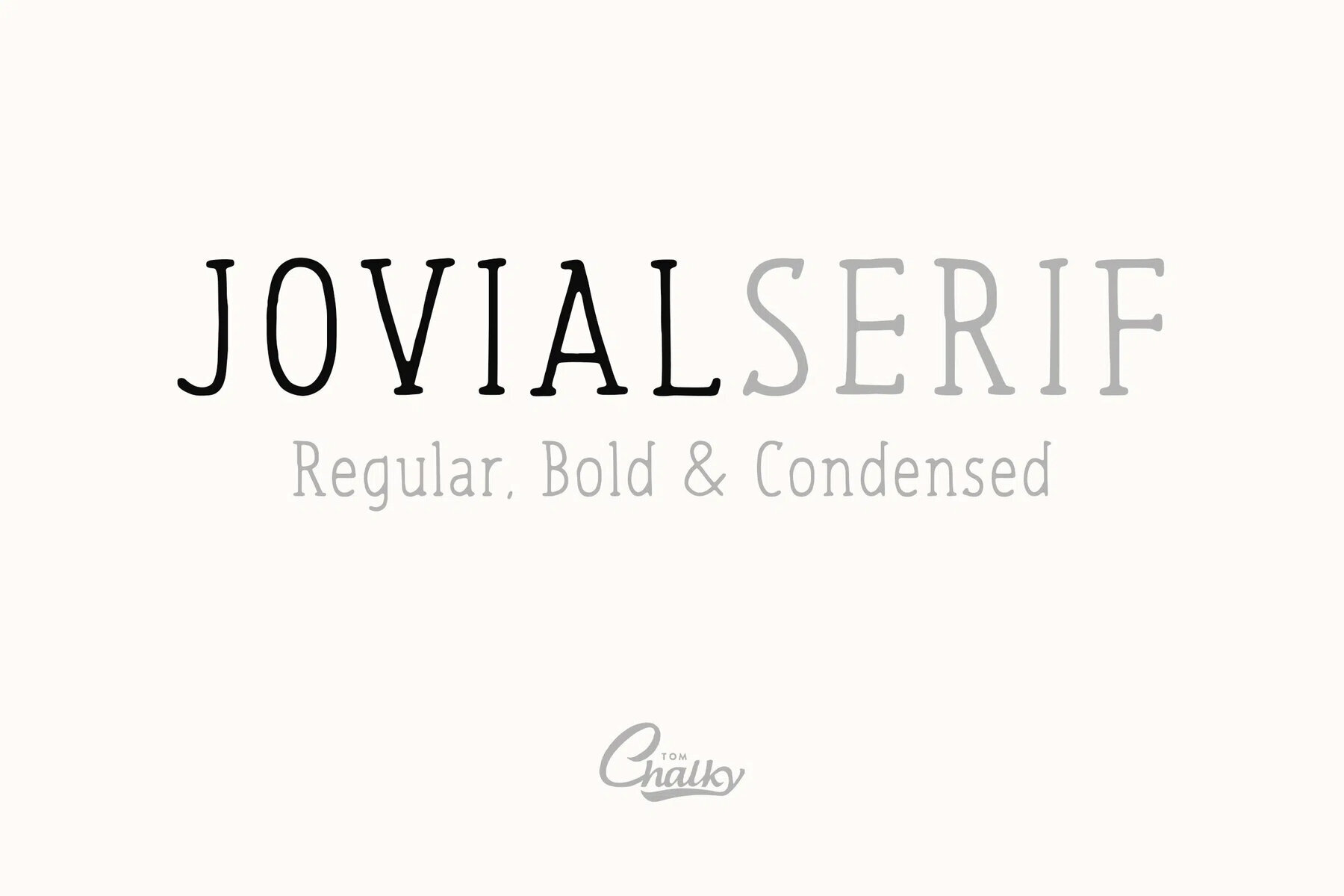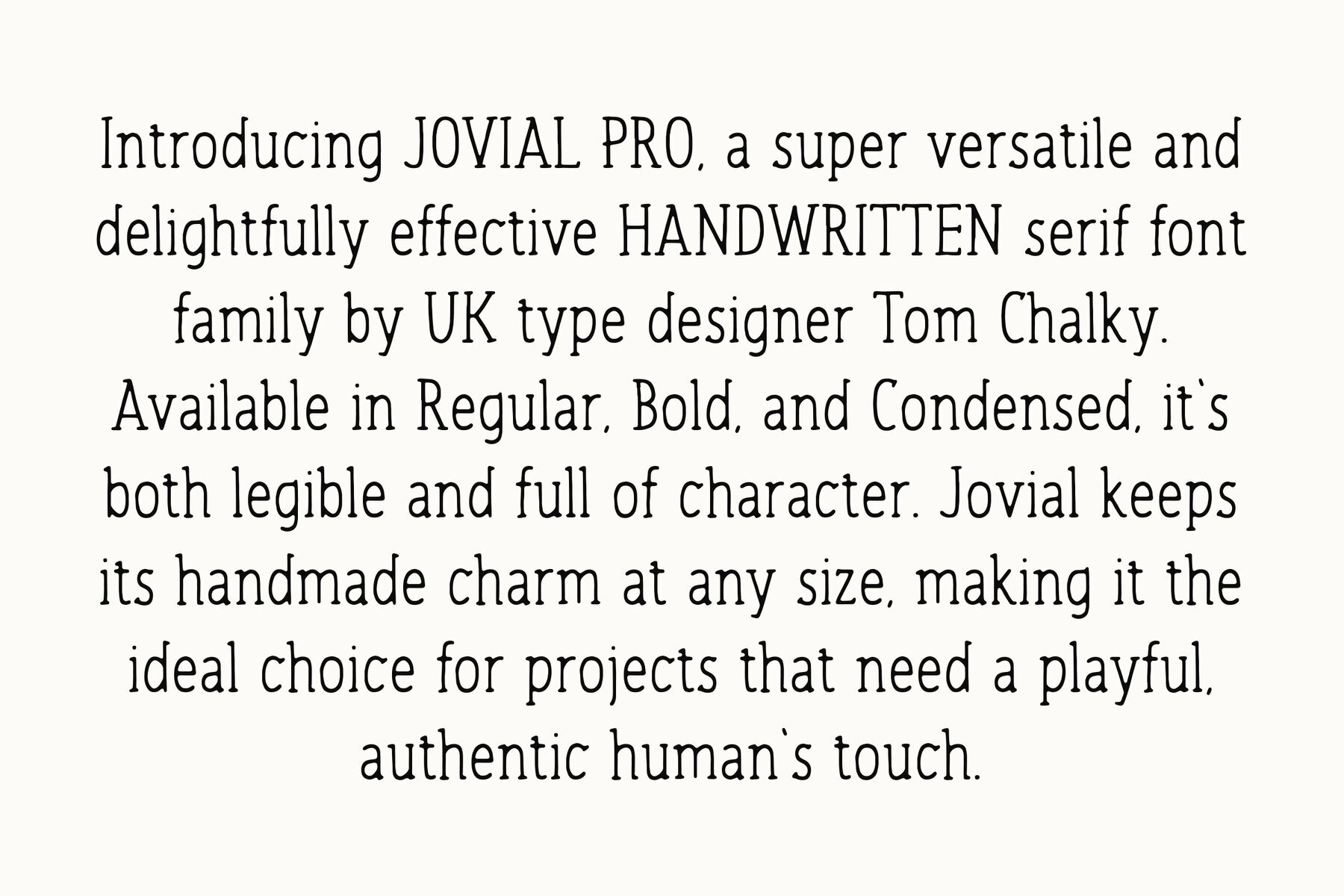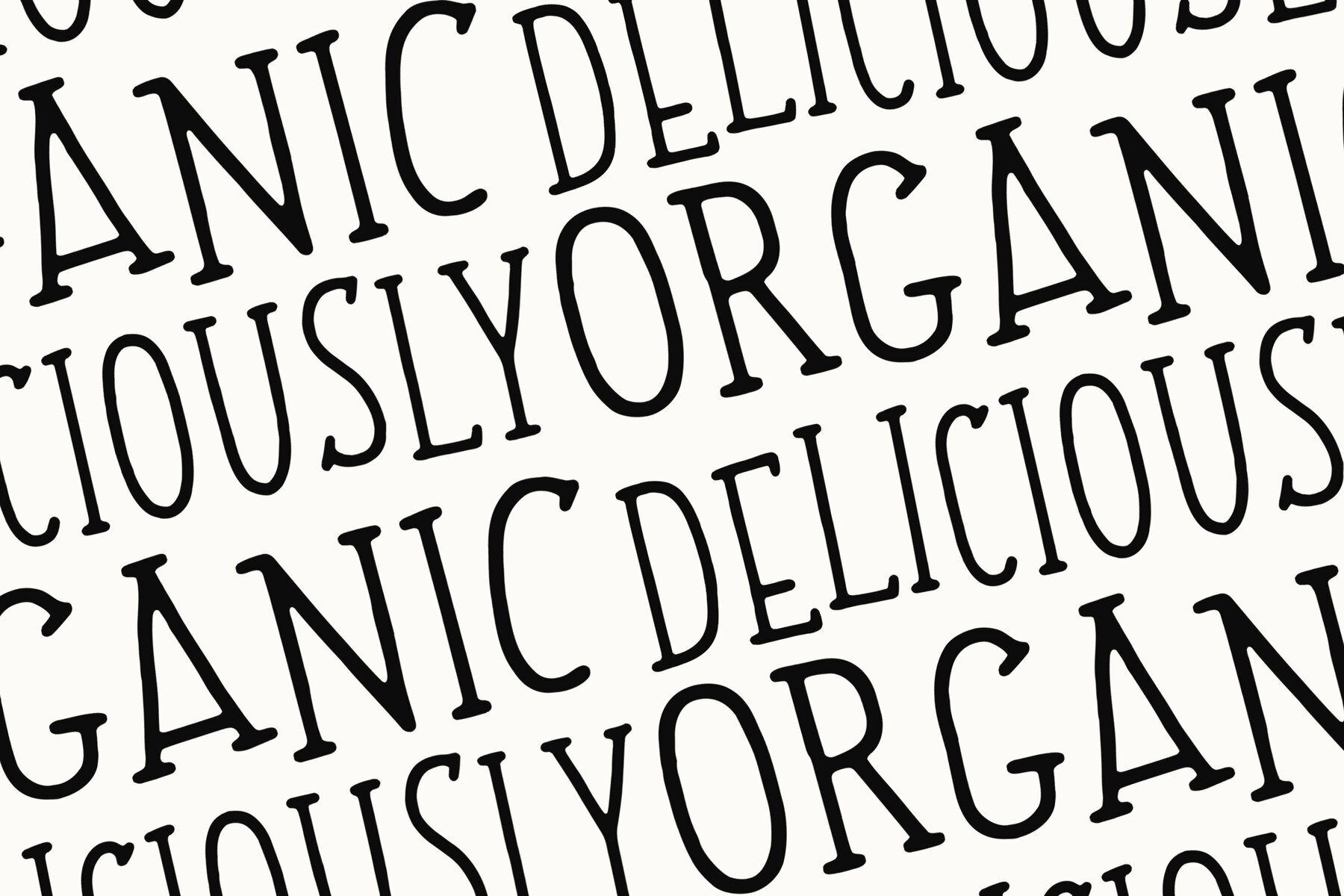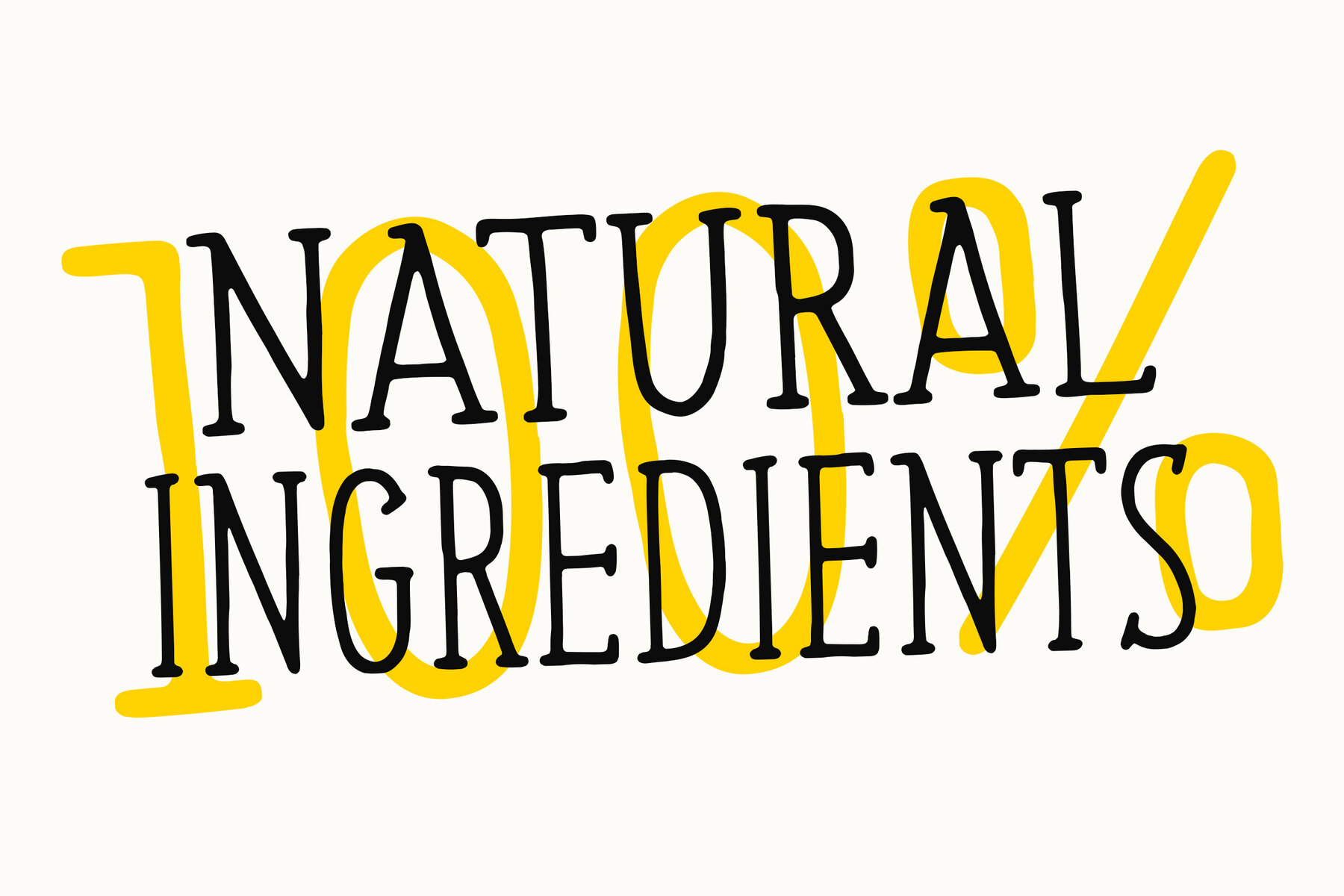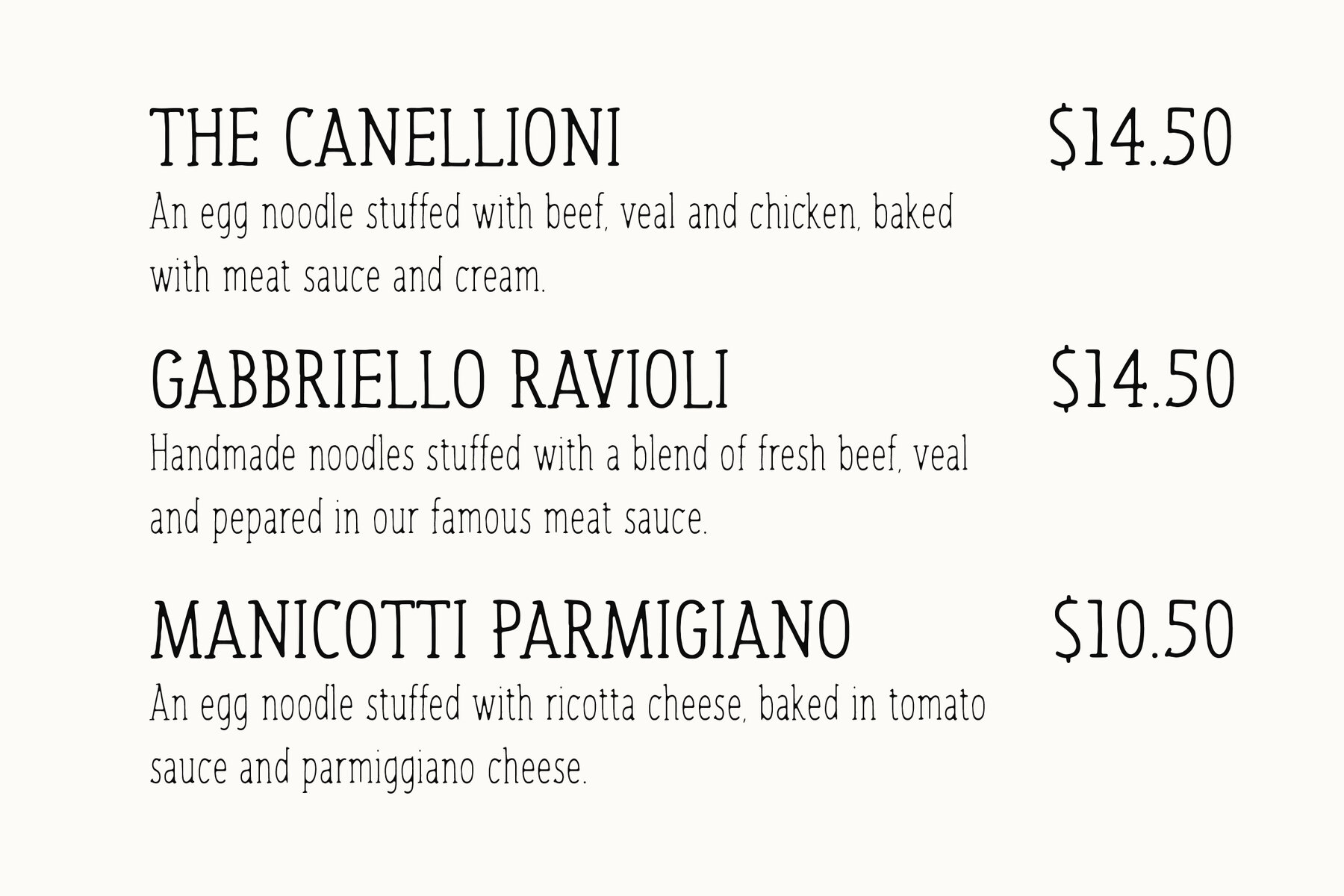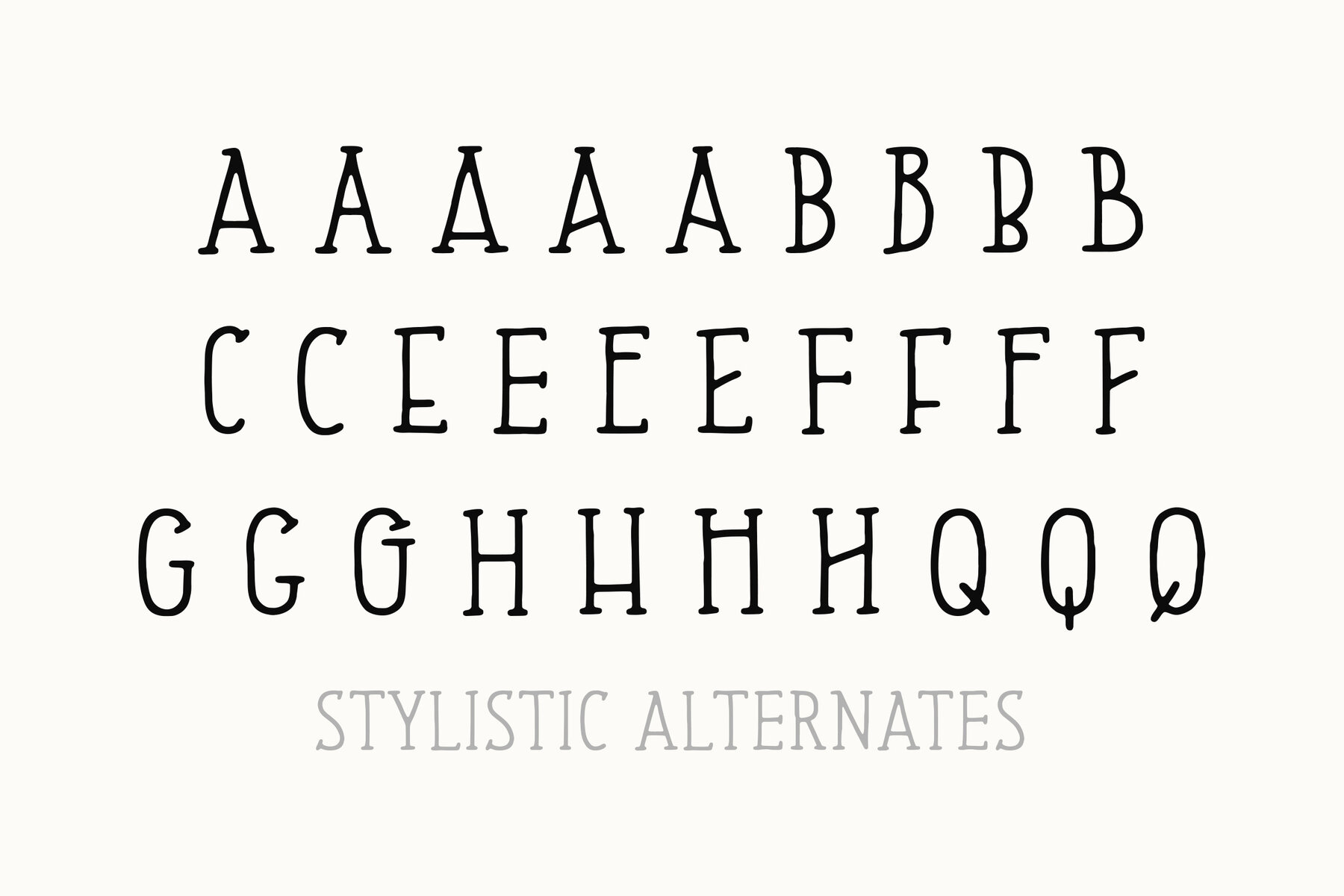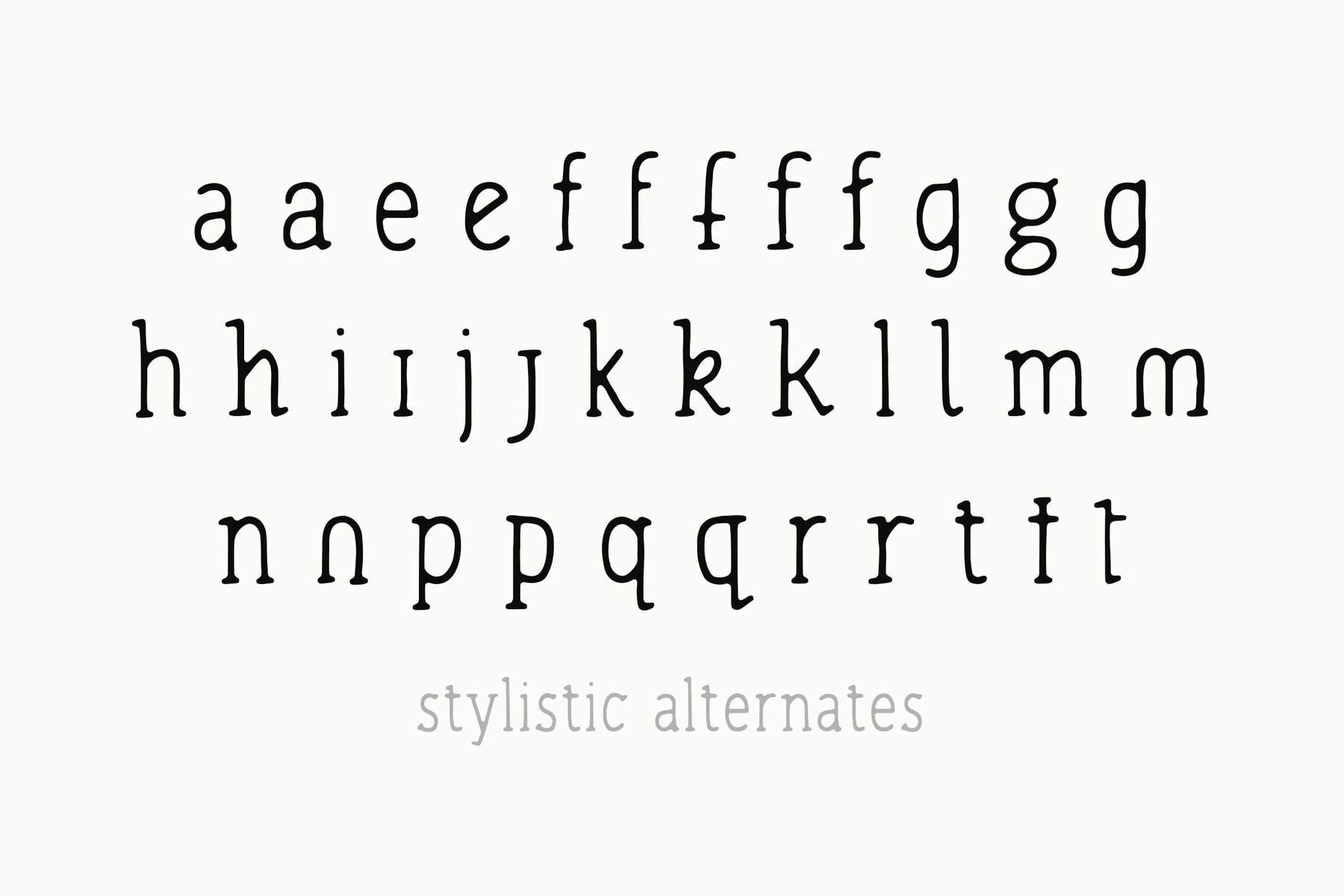
TC Jovial Serif Font
Jovial Serif brings a delightful twist to the classic serif typeface by combining handwritten charm with the structure of traditional serifs. Available in Regular, Bold, and Condensed, this versatile font is designed to add a sense of warmth and personality to your projects. Its quirky curves and subtle details make it perfect for everything from product packaging and menus to branding and editorial designs. Jovial Serif stands out with its handcrafted feel while maintaining excellent readability, offering a perfect balance between playful and professional. It's an ideal choice for any creative project that calls for a touch of authenticity.